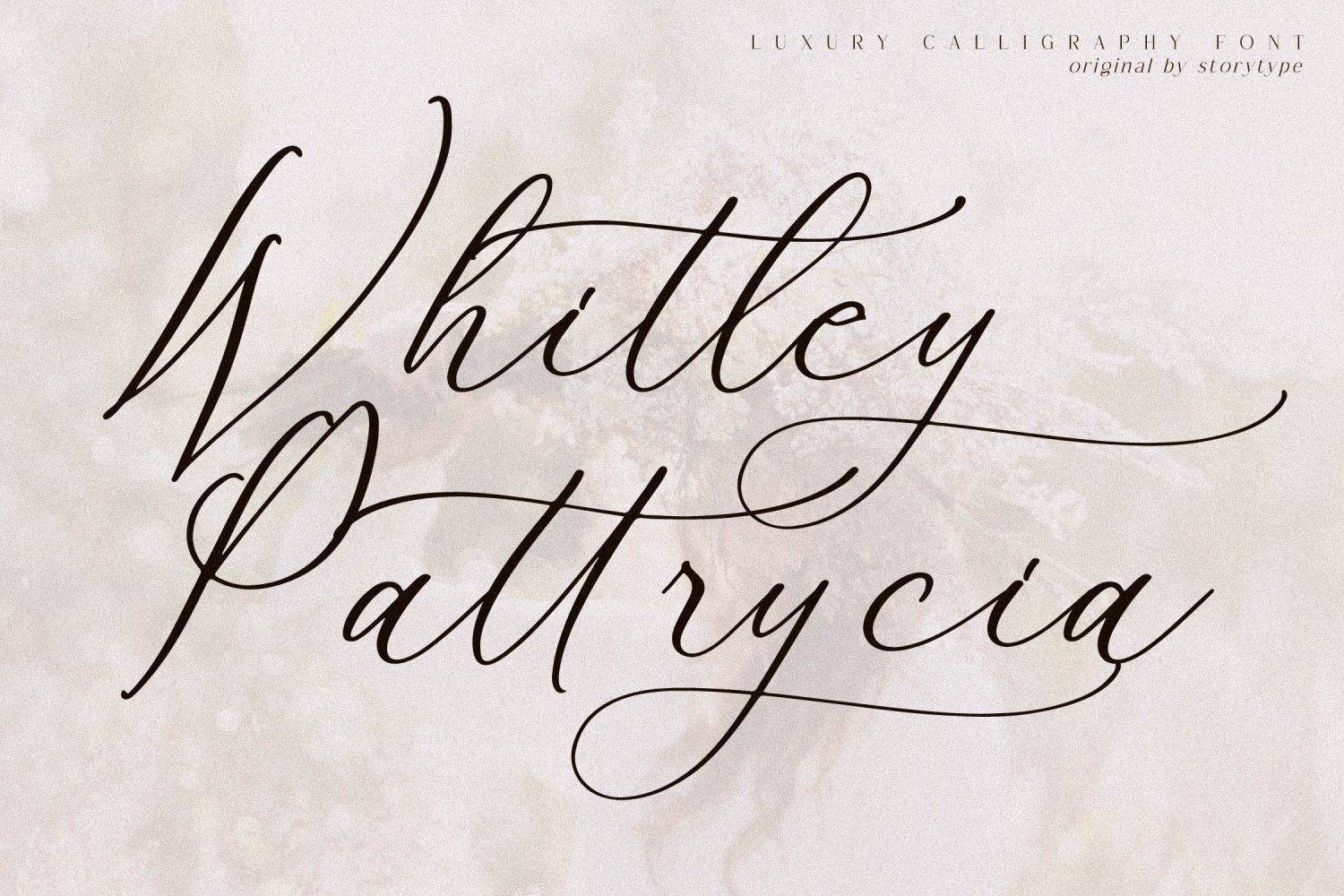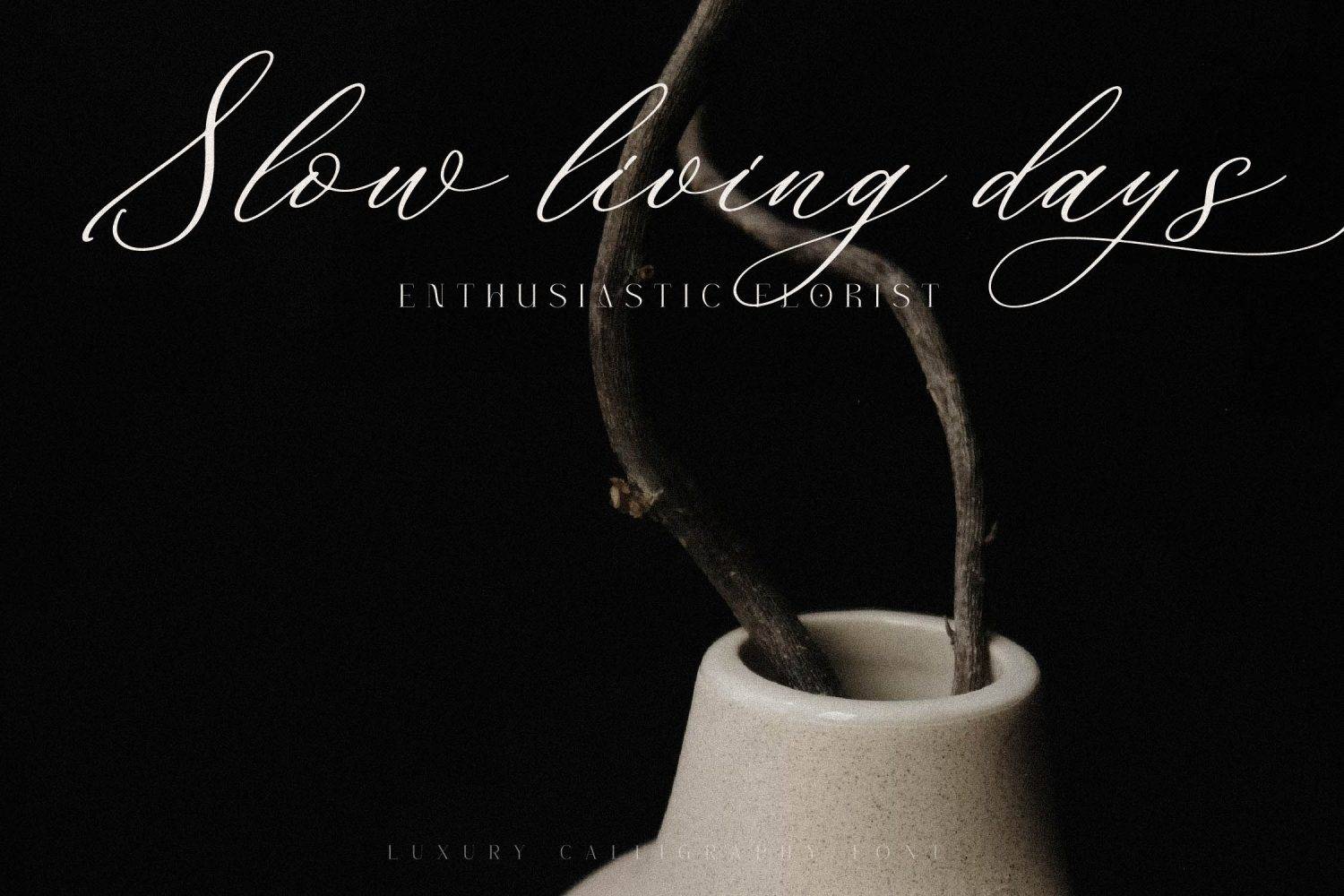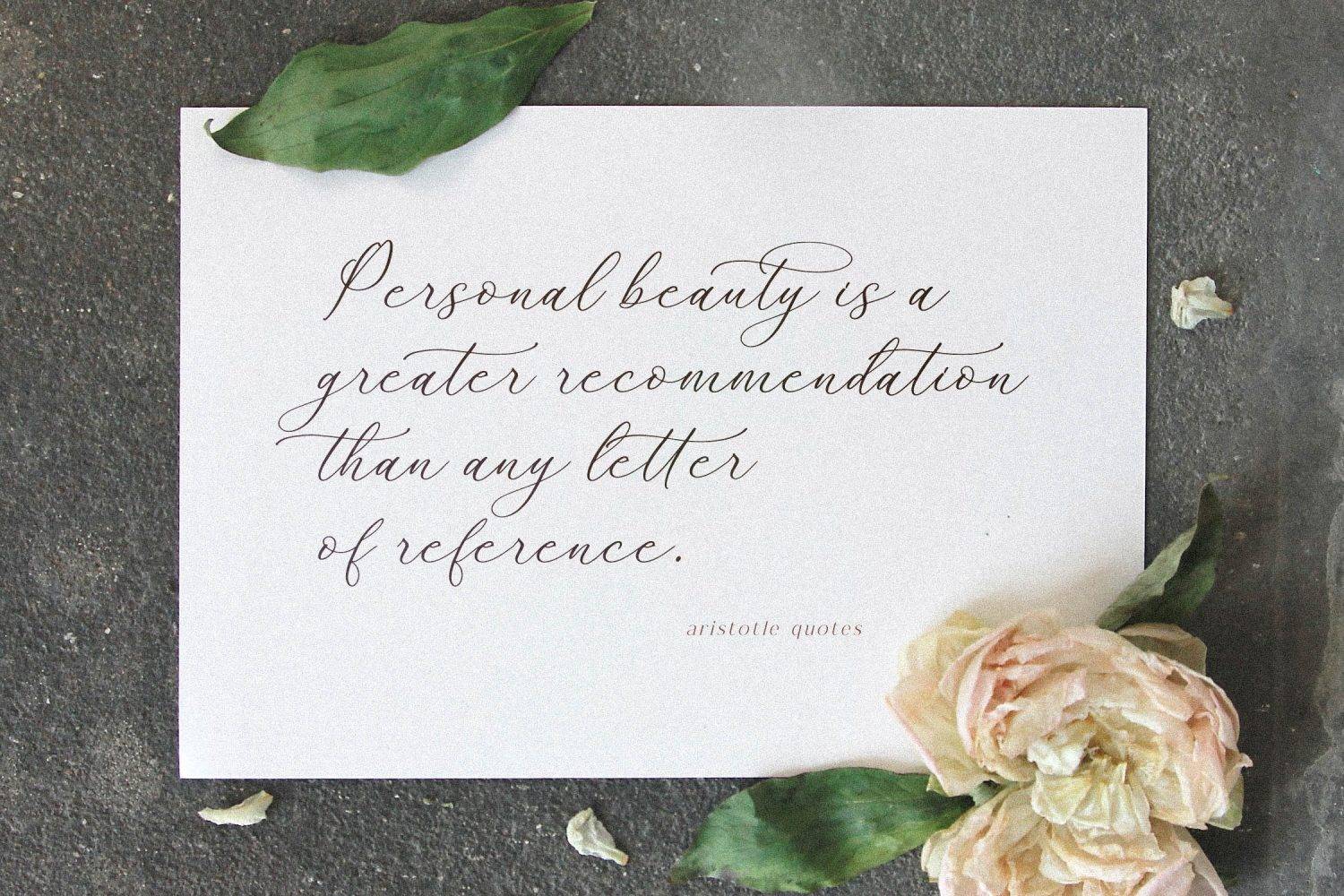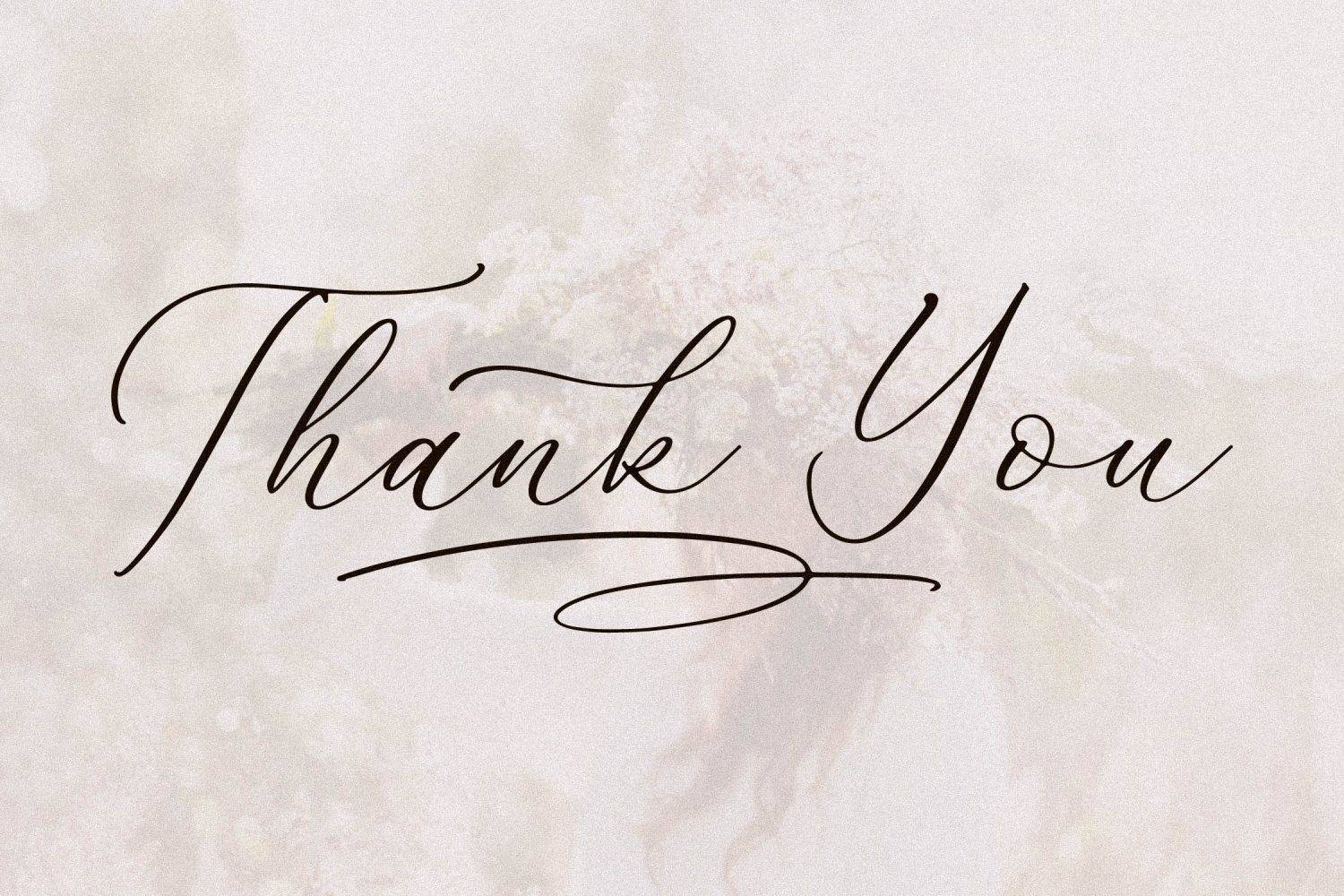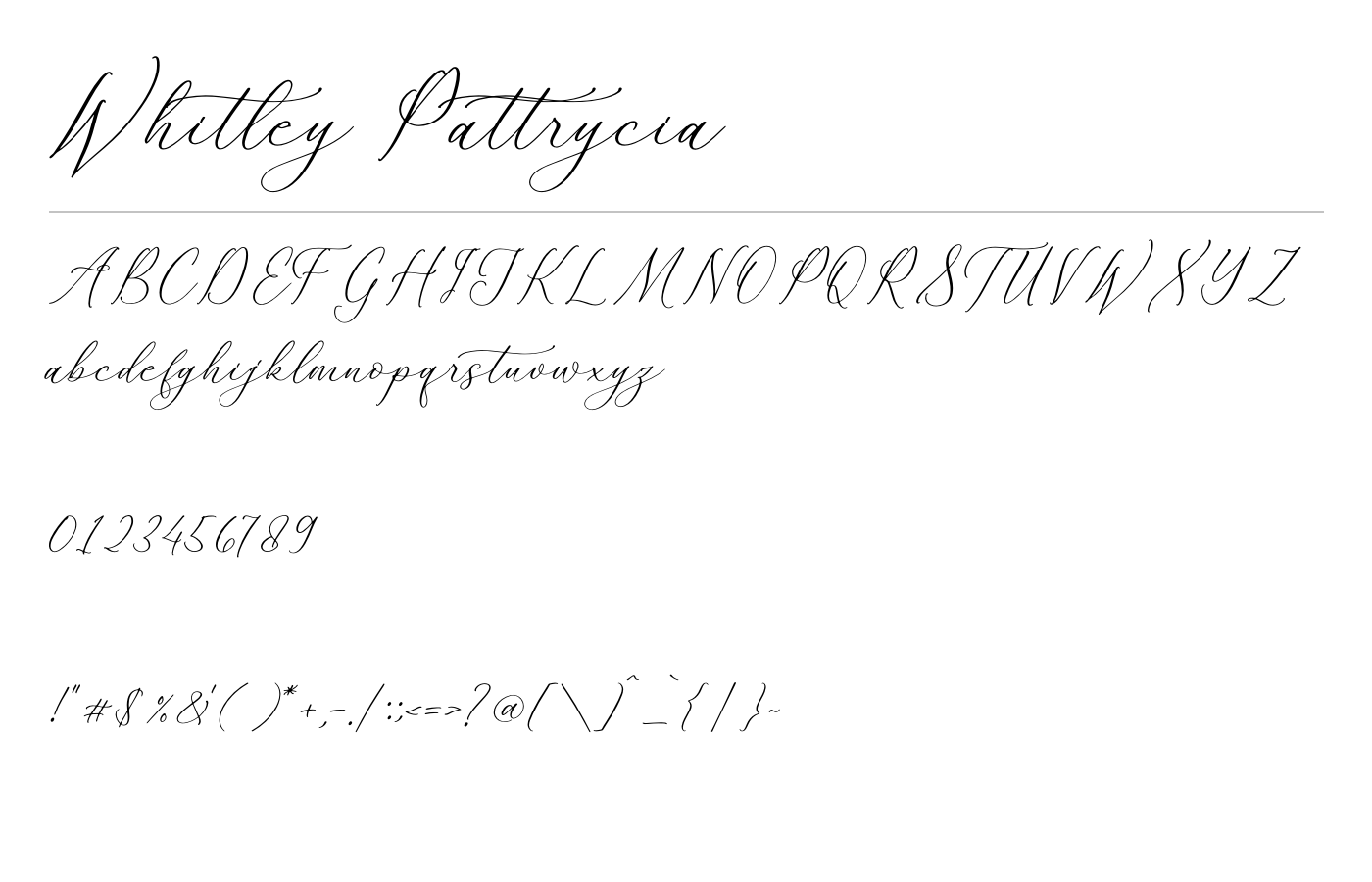
Whitley Pattrycia is an elegant, delicate script font characterized by its fine, flowing strokes and graceful letterforms. Its thin, calligraphic style with subtle flourishes conveys a refined, sophisticated feel, making it ideal for invitations, luxury branding, and stylish editorial use where a touch of classic elegance is desired. This font works best in decorative settings, especially for headlines or short texts rather than body copy due to its intricate details.
Whitley Pattrycia Font
About Whitley Pattrycia Font